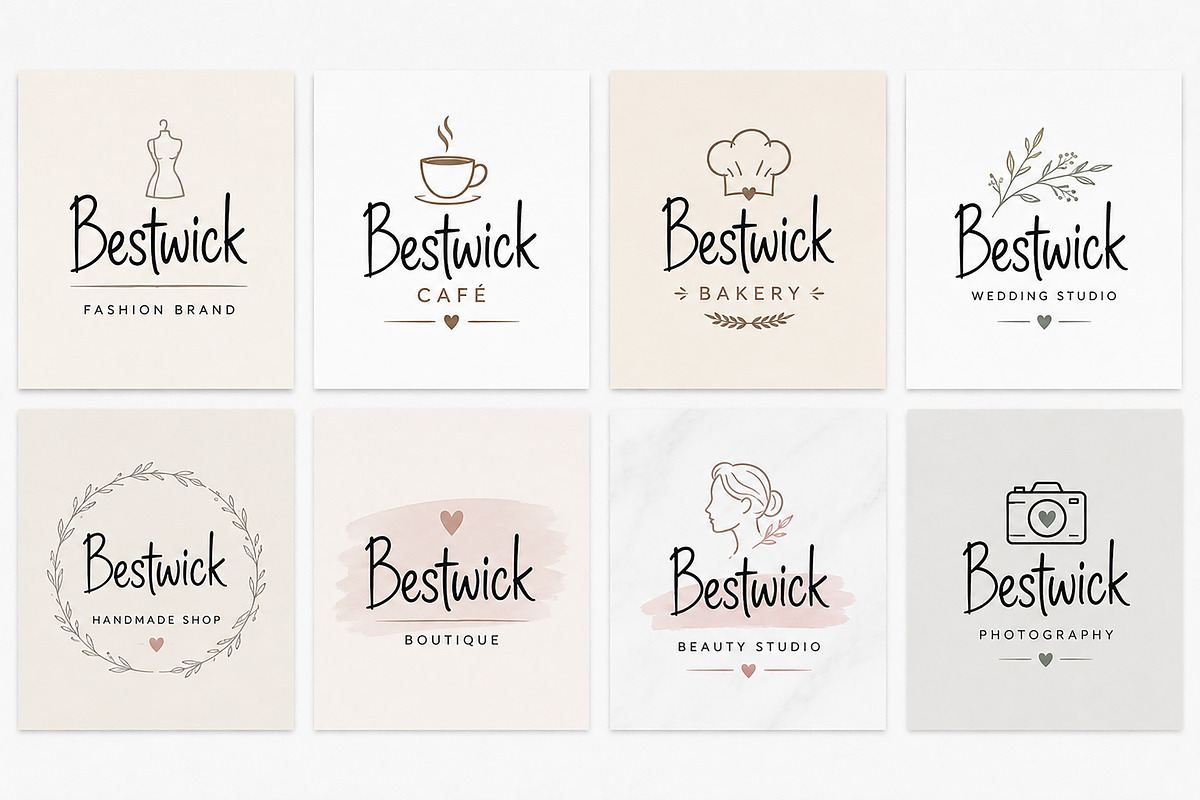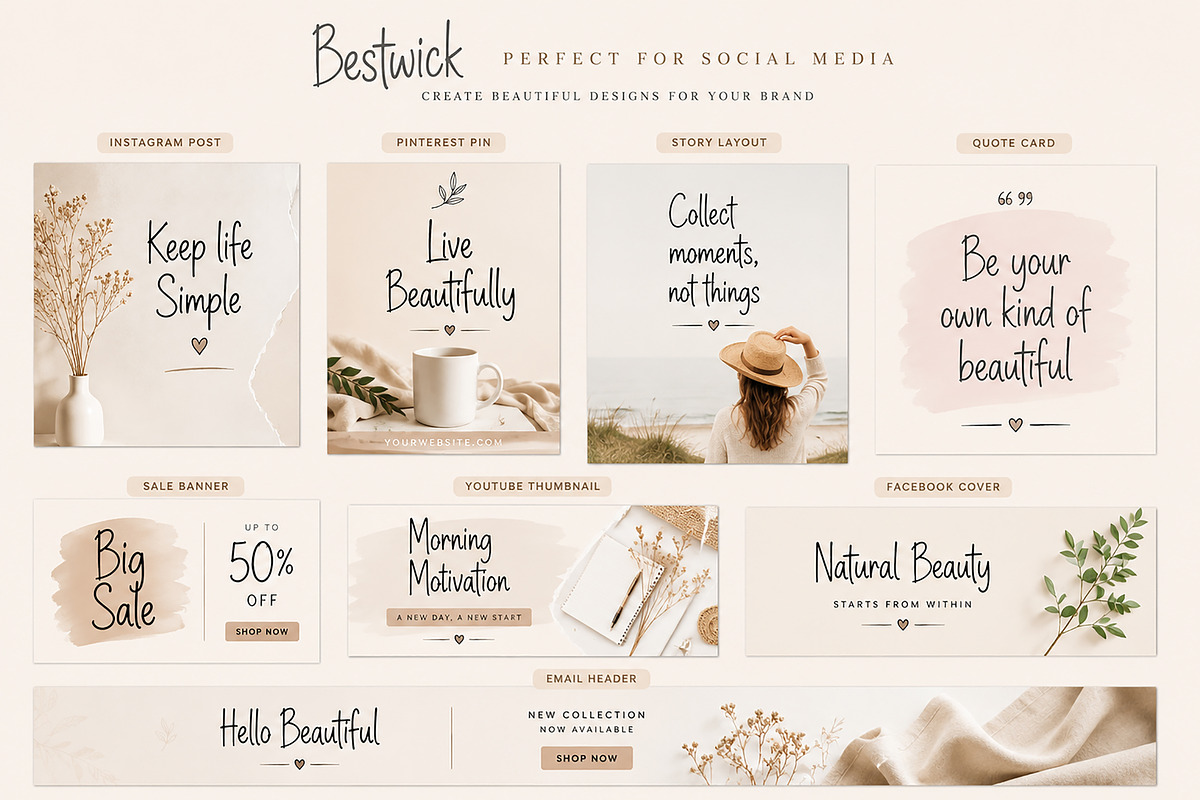
Bestwick –Handwritten Signature Font
Bestwick – Handwritten Signature Font
Bestwick is a modern handwritten signature font that blends natural charm with clean elegance. Designed with smooth, flowing strokes and an authentic handwritten feel, this font is perfect for creating stylish and personal designs.
Its relaxed yet refined appearance makes it an excellent choice for branding, logos, social media, packaging, wedding stationery, and lifestyle projects. Whether you're designing for a creative business or crafting beautiful marketing materials, Bestwick adds warmth, personality, and a premium handwritten touch.
The balanced letterforms and natural rhythm ensure excellent readability while maintaining an organic handwritten style, making it suitable for both digital and print applications.
Branding Identity
Fashion Branding
Beauty Products
Handmade Business
Boutique Logos
Coffee Shops
Bakery Branding
Wedding Invitations
Greeting Cards
Instagram Posts
Pinterest Graphics
YouTube Thumbnails
Cosmetic Labels
Clothing Labels
Business Cards
Photography Branding
Quote Designs
Magazine Titles
Blog Graphics
Website Headers
Gift Tags
Stationery Design
Smooth Handwritten Style
Bestwick is a versatile handwritten font created to help designers, entrepreneurs, and creatives build memorable brands with a natural, elegant, and modern look.